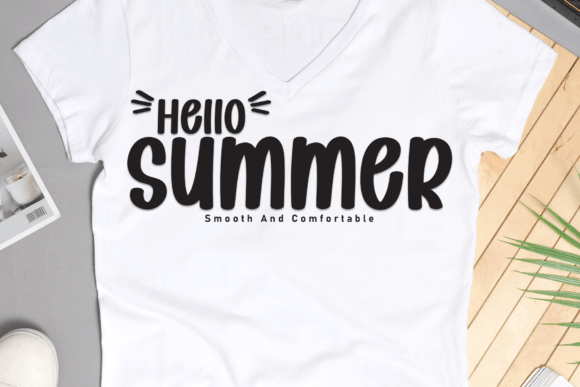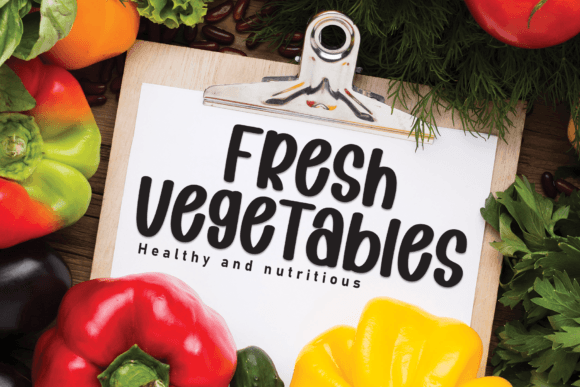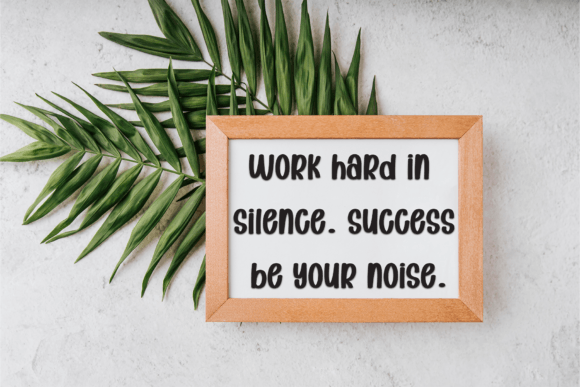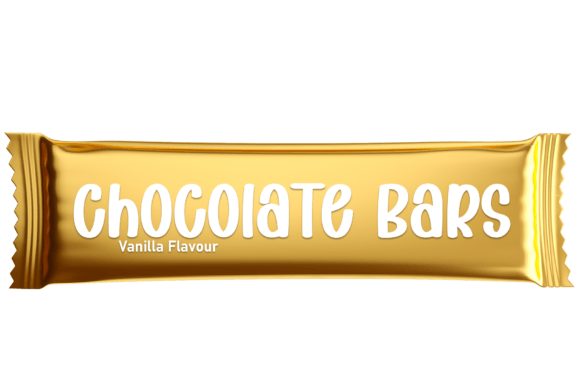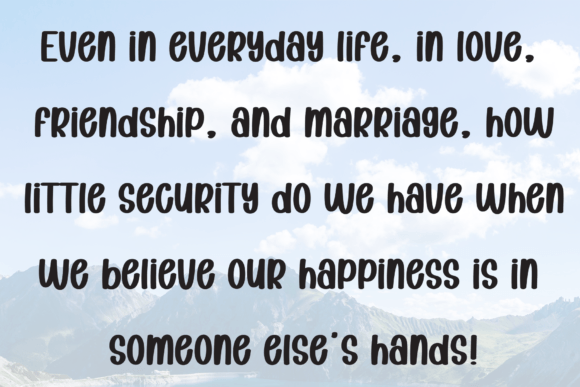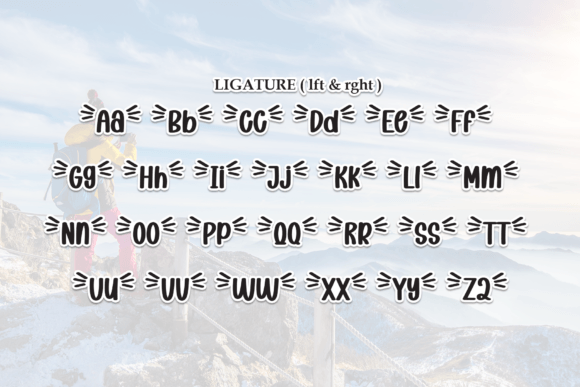
Introduction to Mountain Tour Font
Have you ever found yourself scribbling down ideas in a coffee shop, surrounded by the hum of conversation and the aroma of freshly brewed coffee? That’s where the creative process often begins – in those spontaneous, high-energy moments when inspiration strikes. For designers, it’s not just about the final product, but the journey of bringing an idea to life. And that’s where a high-quality font like Mountain Tour Font comes in.
As a free download, Mountain Tour Font is an invaluable design resource for any creative project. Its unique, handwritten style is both friendly and professional, making it perfect for a wide range of applications. Whether you’re working on a personal project or a commercial design, Mountain Tour Font is sure to add a touch of warmth and personality to your work.
One of the best things about Mountain Tour Font is its versatility. You can use it to create graphics with a transparent background, or as a bold statement in your next design project. With Mountain Tour Font, the only limit is your imagination – and that’s what makes it so valuable for designers.
Key Features of Mountain Tour Font
- High-quality typography for creative projects: Mountain Tour Font is designed to provide a unique and stylish look for your designs.
- Design resource: Mountain Tour Font is a versatile design resource suitable for various creative projects, including logos, brochures, and posters.
- Unique characteristics: The font features a unique blend of modern and vintage elements, making it perfect for projects that require a touch of adventure and exploration.
Honest Review: Mountain Tour Font
As a designer, I’m always on the lookout for high-quality design resources to elevate my creative projects. The Mountain Tour Font caught my attention with its beautiful and rugged feel, perfect for outdoor-themed designs.
What works well: ✨ The font is free to download, which is a huge plus for designers on a budget. The transparent background allows for seamless integration with any design, making it a versatile design resource. The font’s high-quality rendering ensures crisp and clear text, even at large sizes.
- Clean and modern design aesthetic
- High-quality rendering for crisp text
Limitations: ⚠️ The font may not be suitable for fine typography or complex text layouts due to its bold and chunky design. Additionally, the font’s limited character set may not be sufficient for longer text passages.
Overall, I’m impressed with the Mountain Tour Font’s potential to add a touch of rugged charm to outdoor-themed designs. While it may have some limitations, its free availability and high-quality design make it a valuable addition to any designer’s toolkit.
To get the most out of the Mountain Tour Font, try using it with a transparent background to create a unique design effect. You can also experiment with different font sizes and colors to add depth and visual interest to your design.
The Mountain Tour Font is a versatile design resource that can be used in a variety of creative projects, including travel brochures, outdoor advertisements, and website headers. Its clean and modern design makes it perfect for any project that requires a high-quality font with a transparent background.